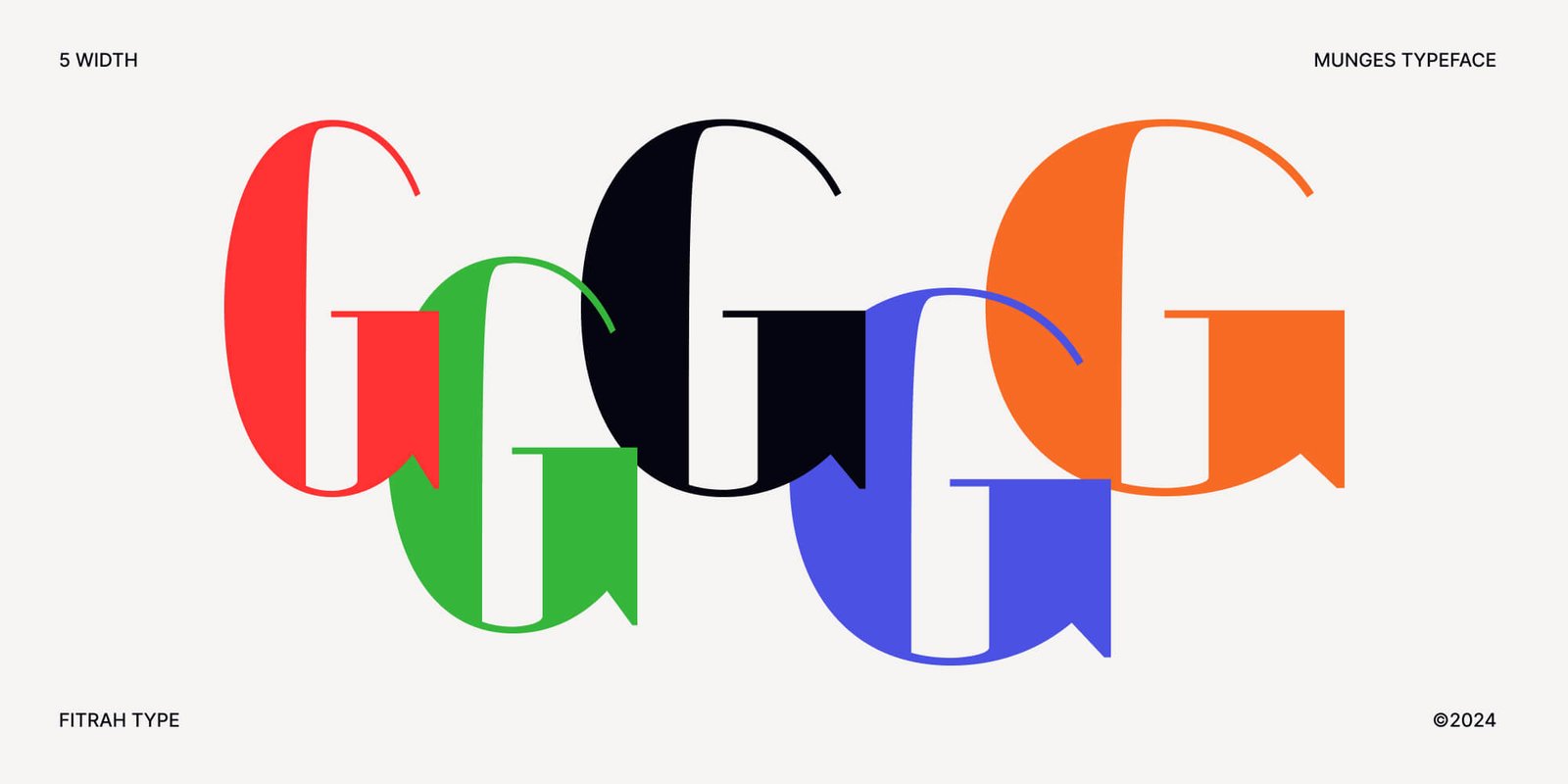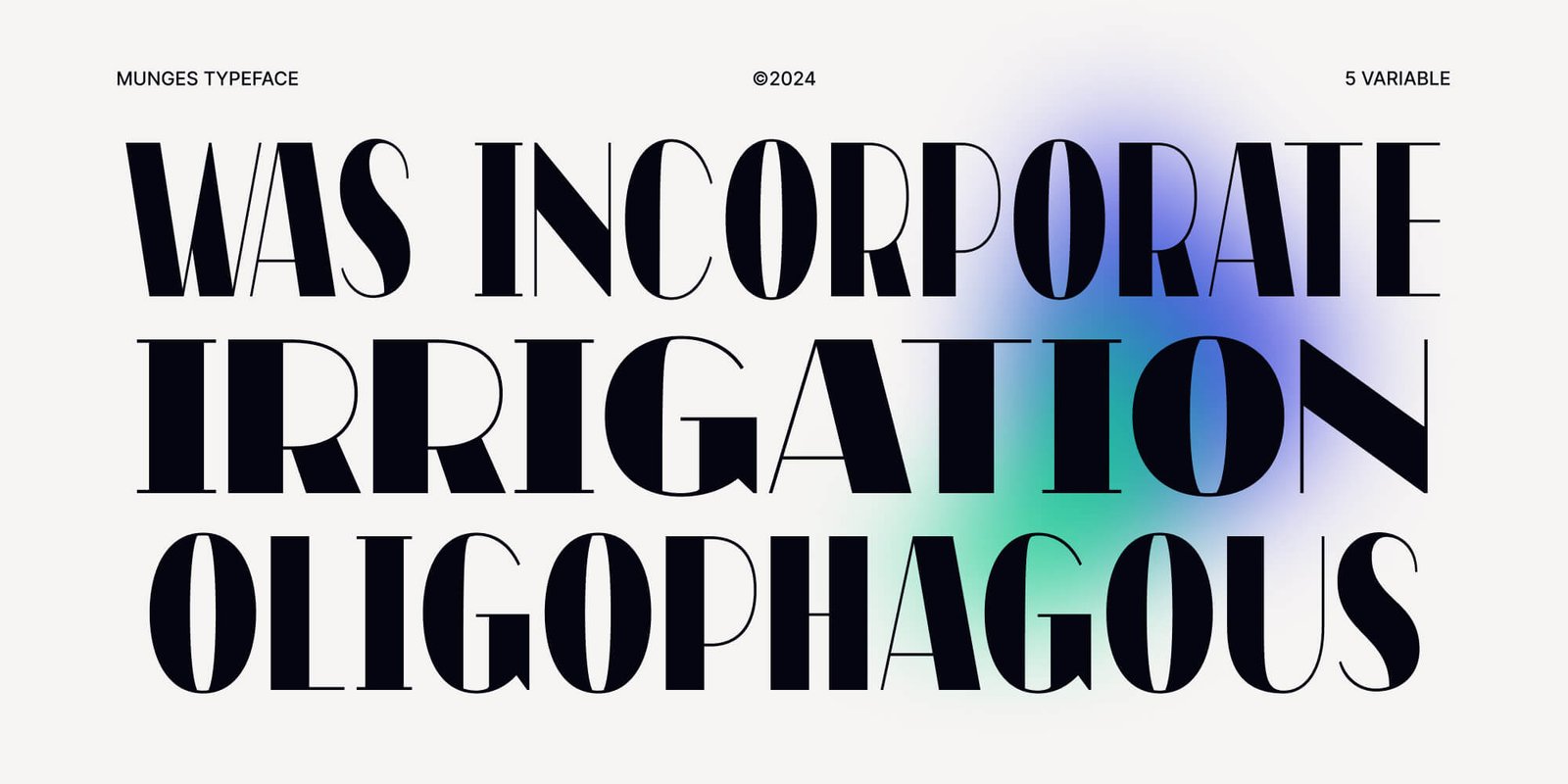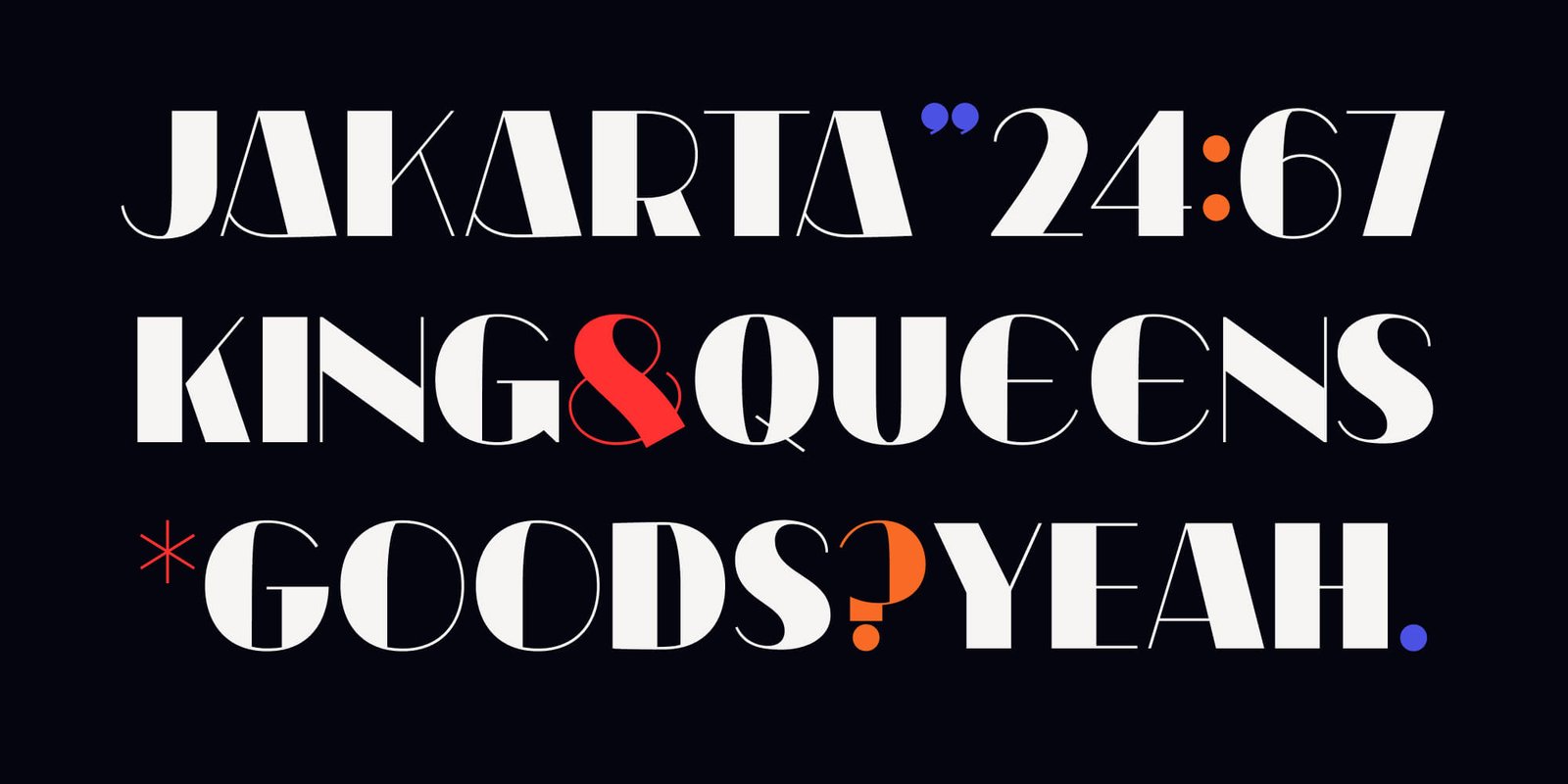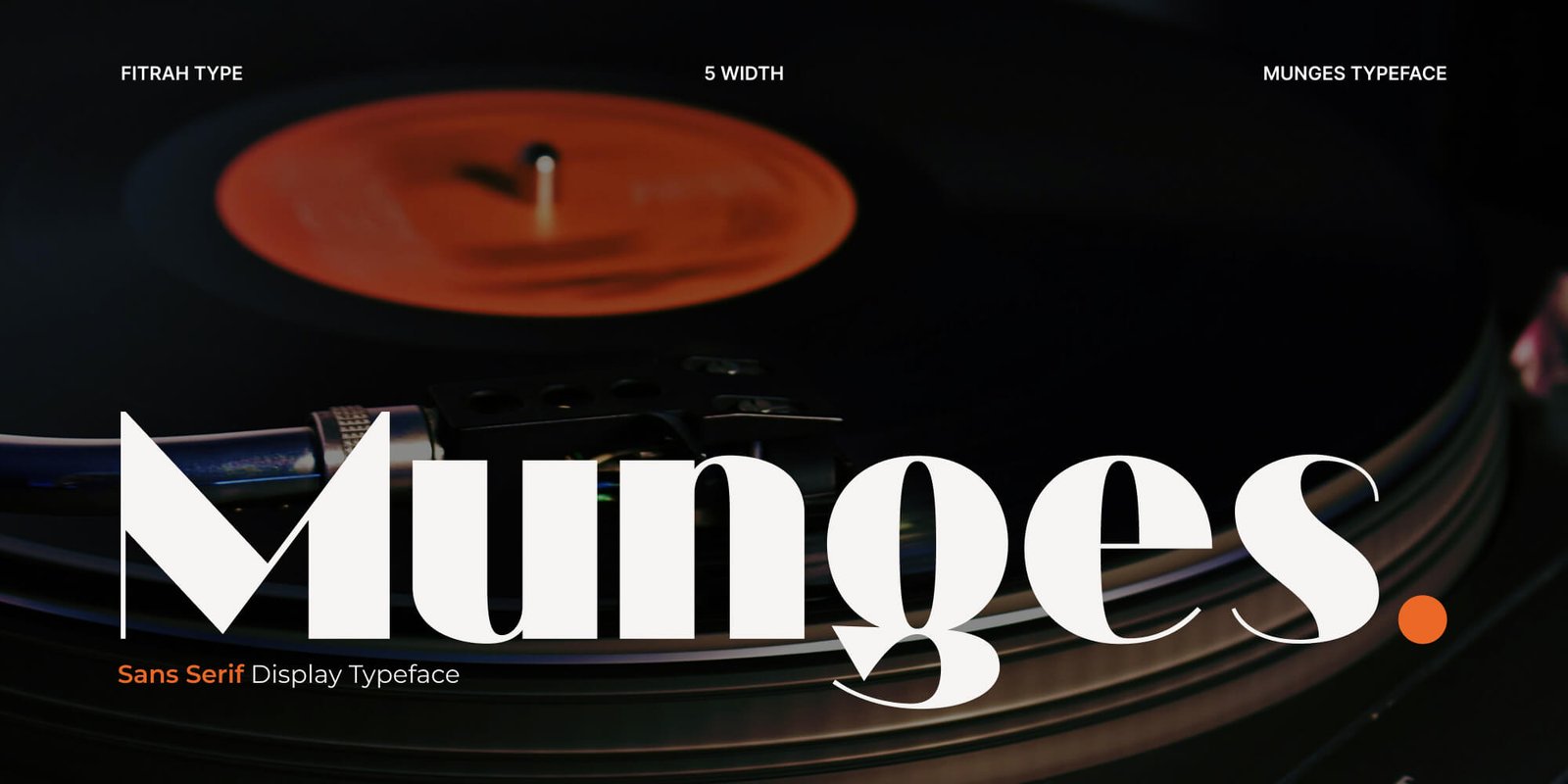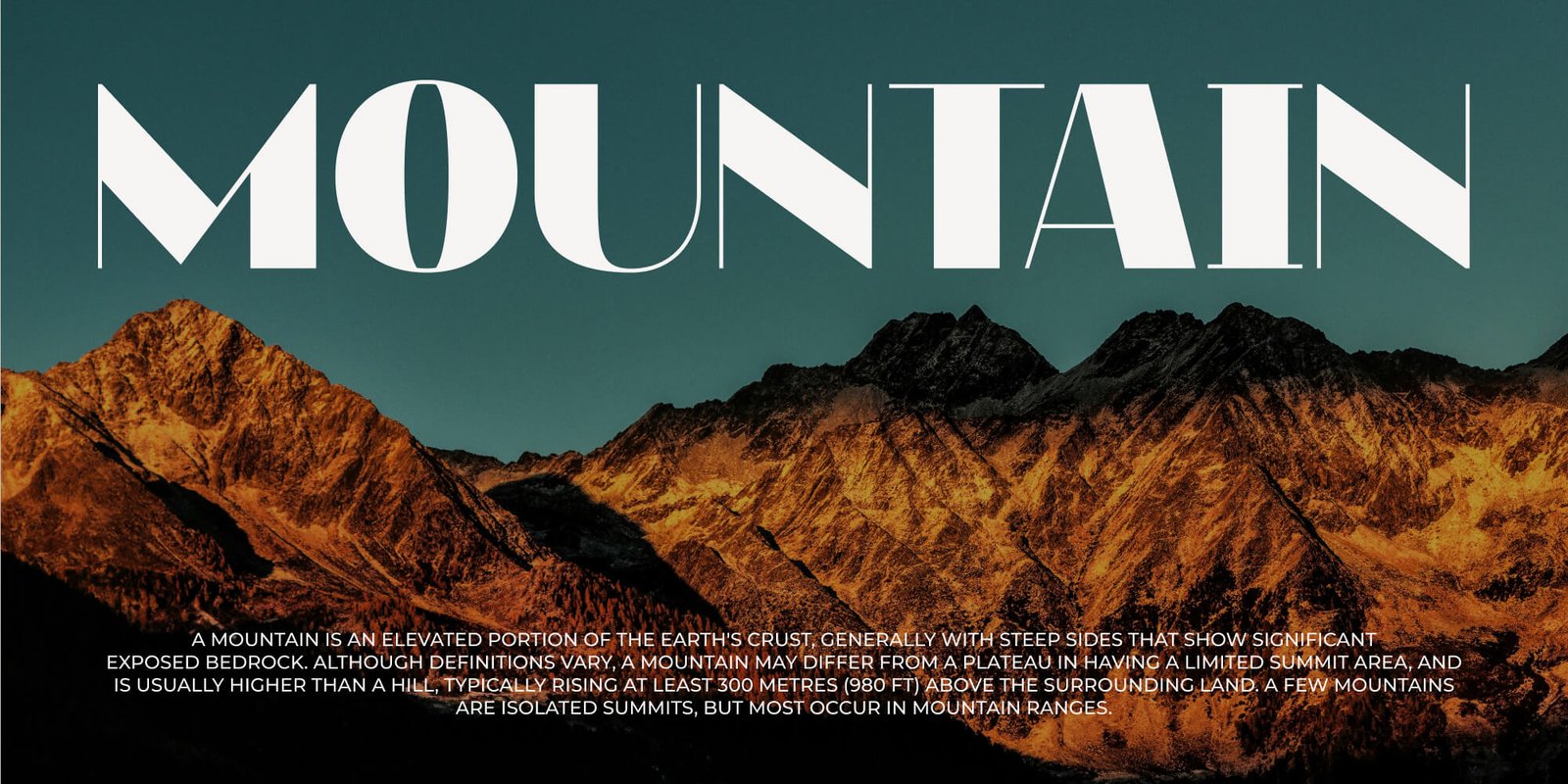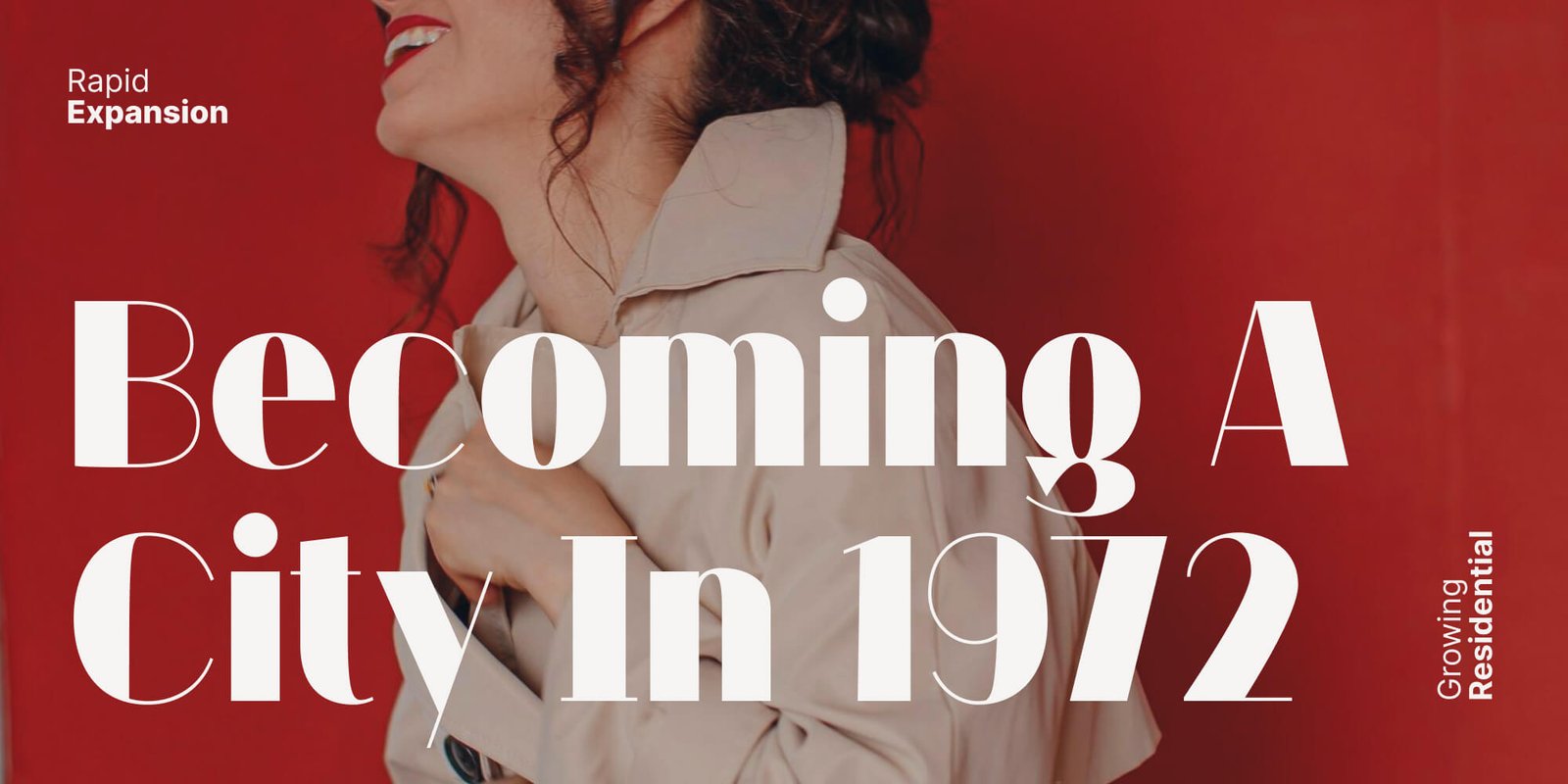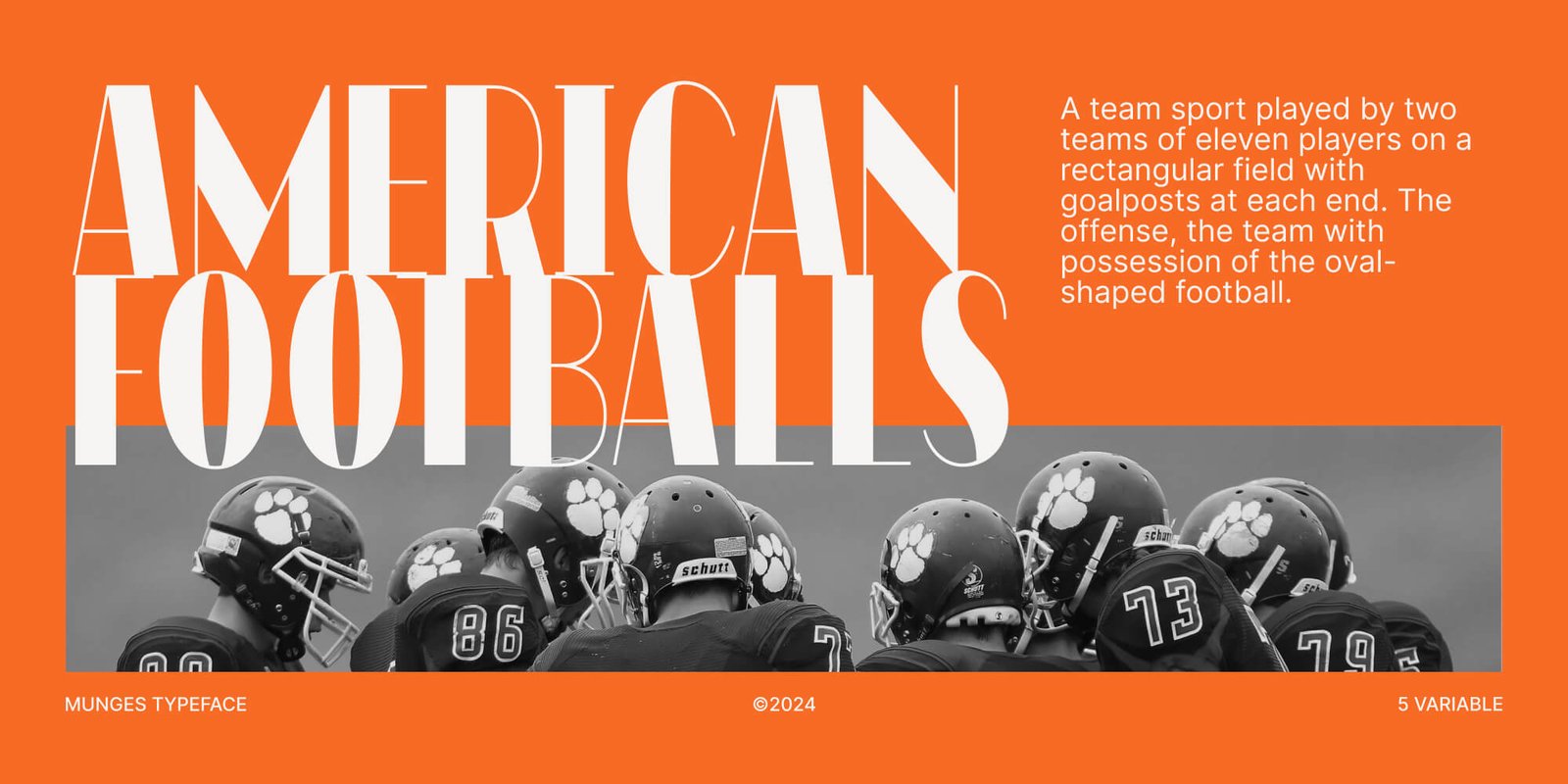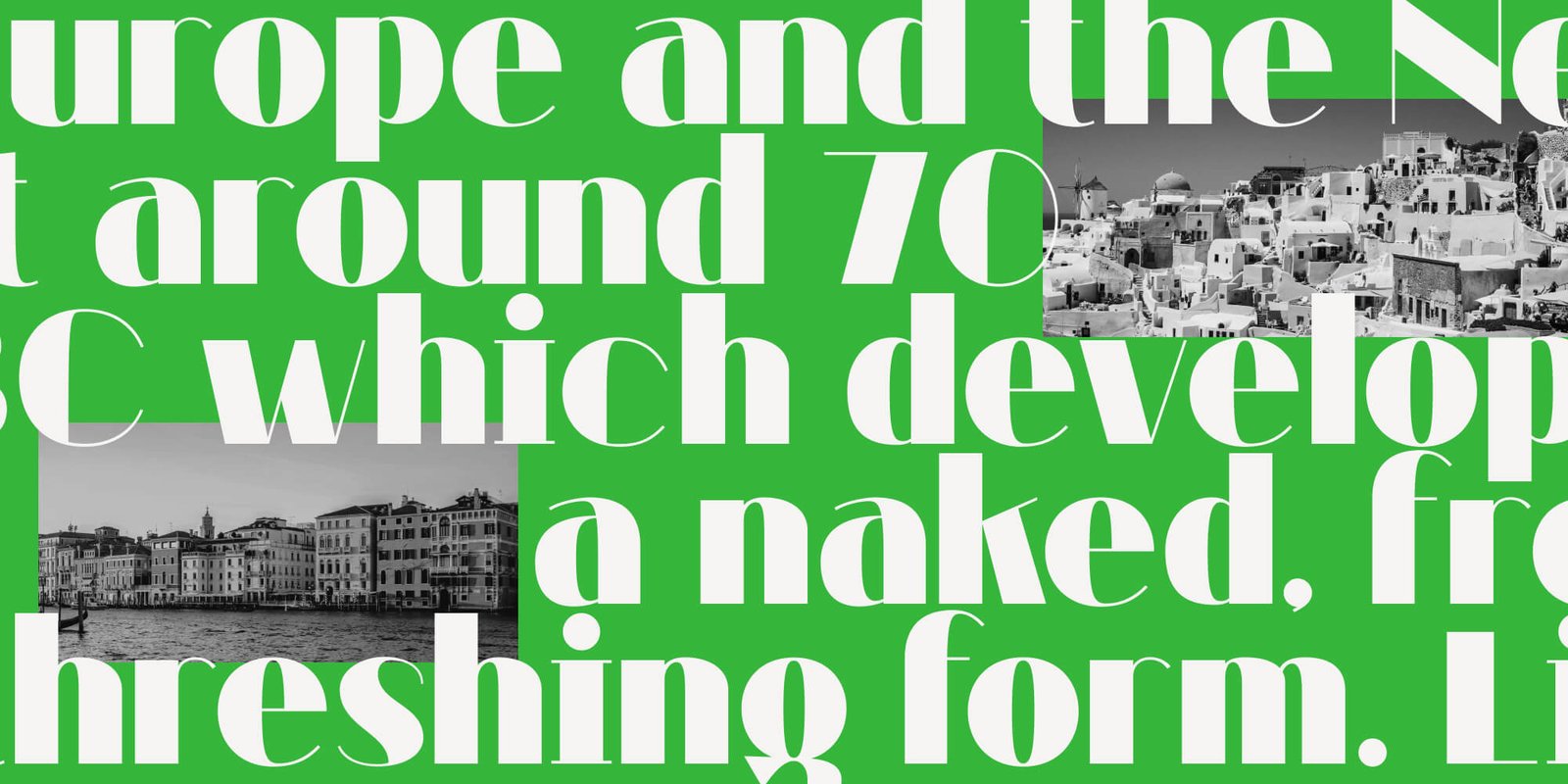
Munges is the newest typeface with a decorative style, The entire typography has been designed to work on large sizes. This font ideal for designing merchandise, social media, marketing posts, product packaging & branding projects.
Munges supports uppercase, lowercase, numerals and punctuation. We highly recommend using a program that supports OpenType features and Glyphs panels such as Adobe Illustrator, Adobe Photoshop CC, Adobe InDesign, or CorelDraw, so you can see and access all Glyph variations.